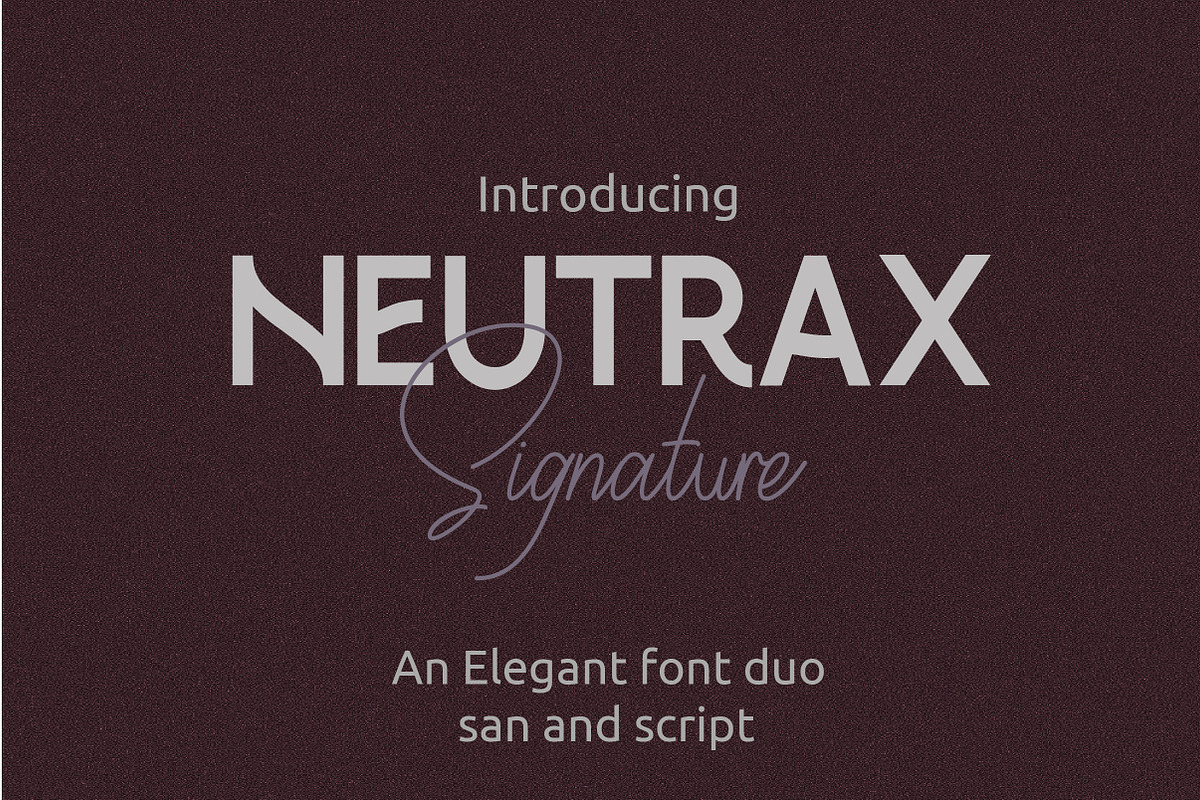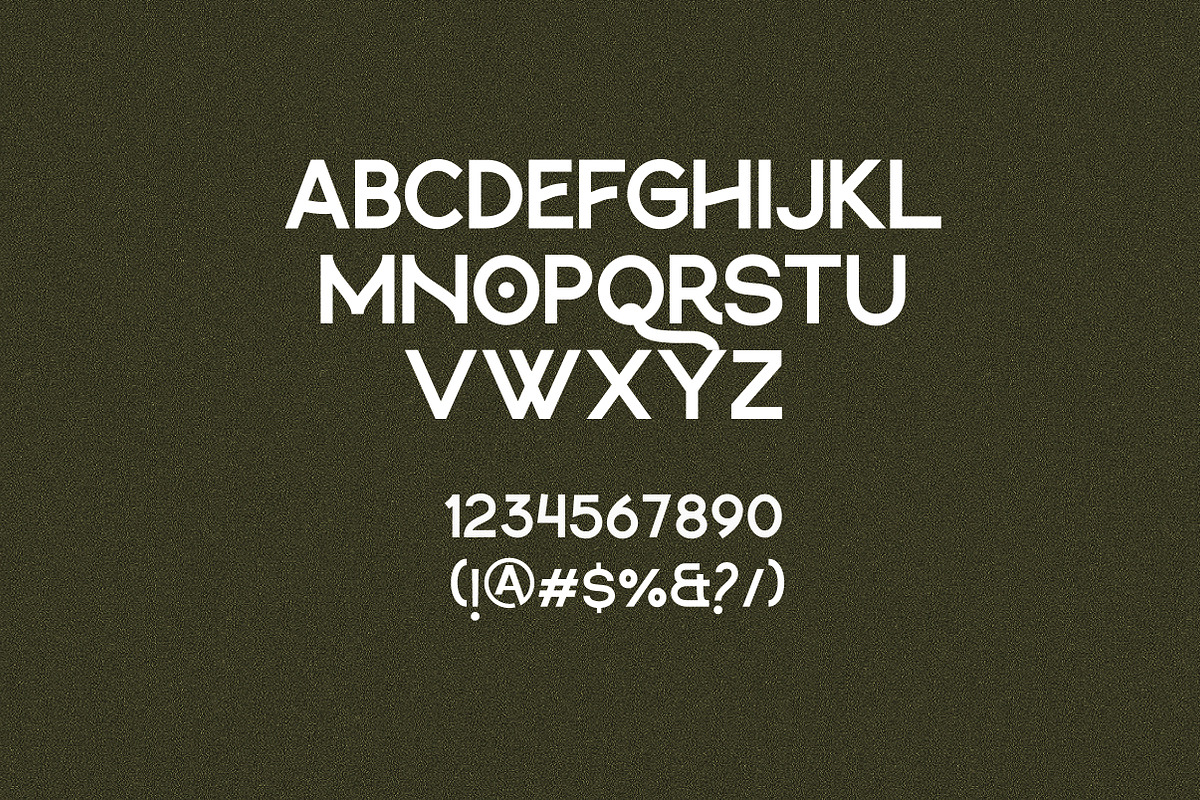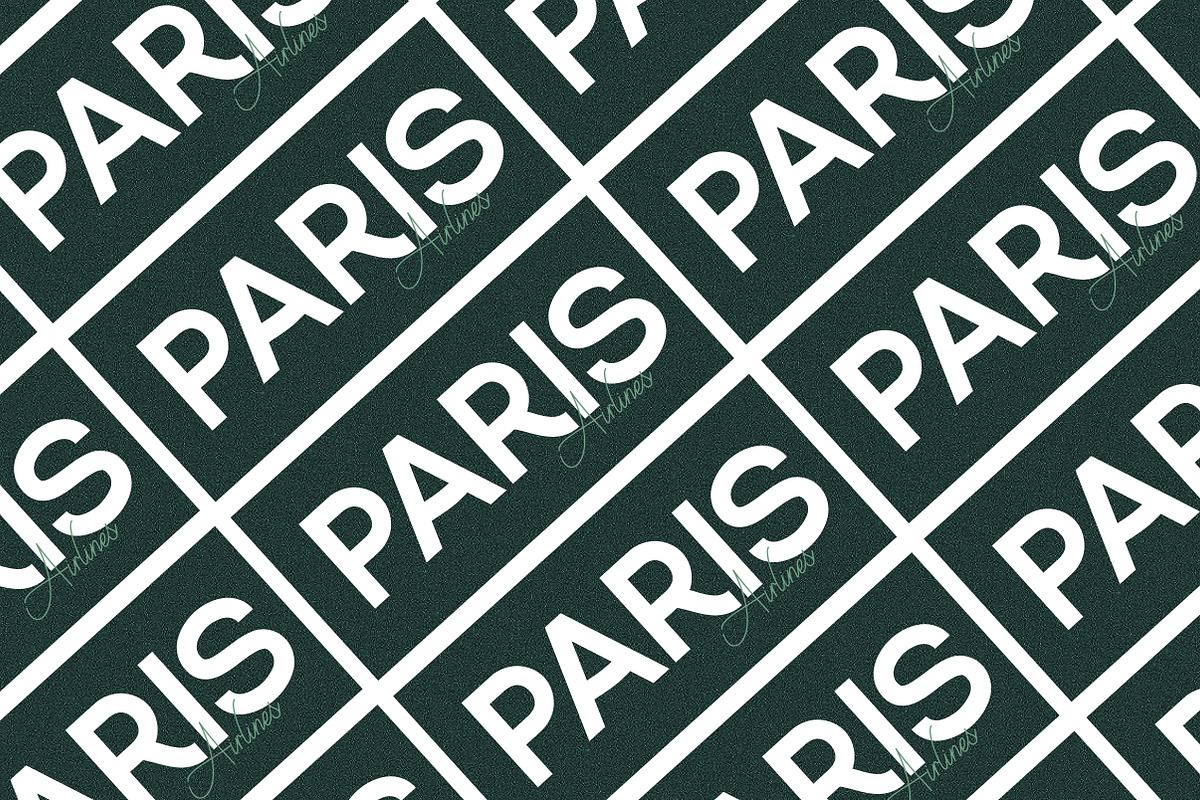
Neutrax | Modern Sans Serif Font
Neutrax is a stylish sans serif font designed with simplicity, clarity, and modern appeal. With its clean lines and geometric structure, Neutrax Regular is perfect for branding, packaging, social media graphics, invitations, editorials, and web or UI design.
This font offers a professional yet creative touch, making it ideal for headlines, body text, and versatile visual identities. Whether you're working on digital layouts or print materials, Neutrax adapts seamlessly across various design needs.